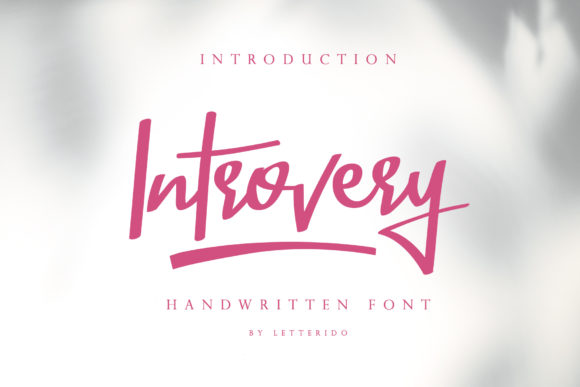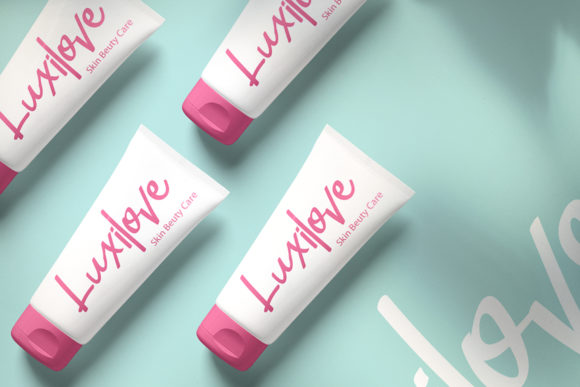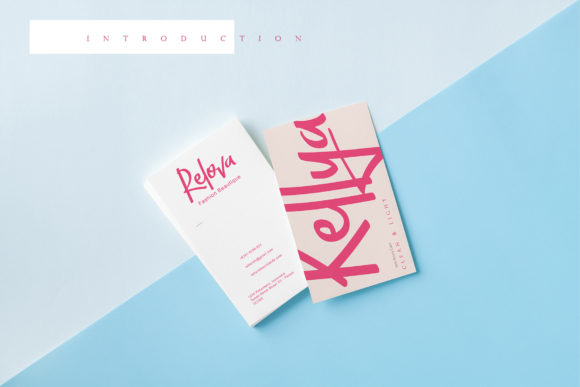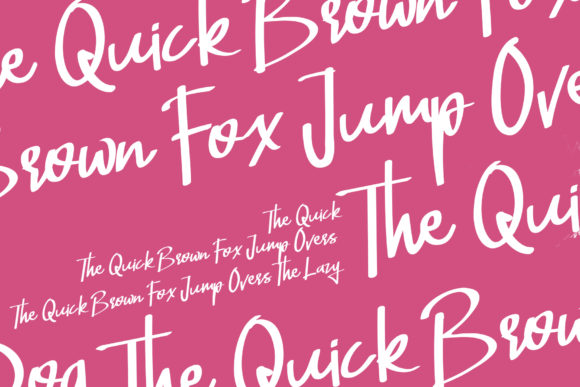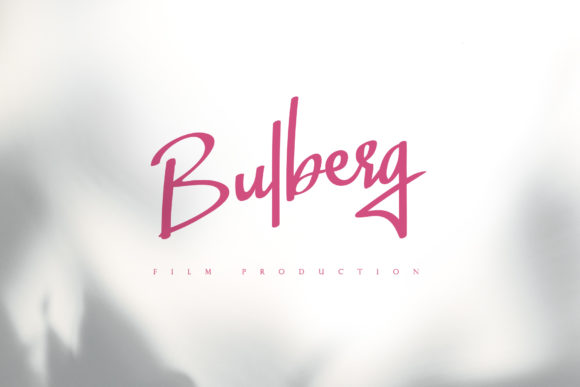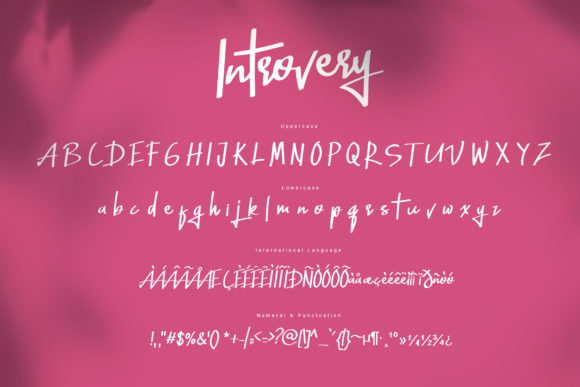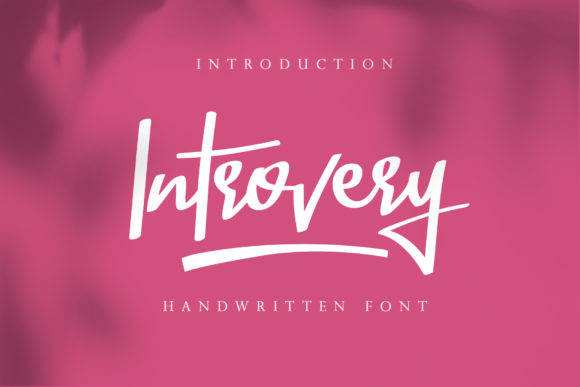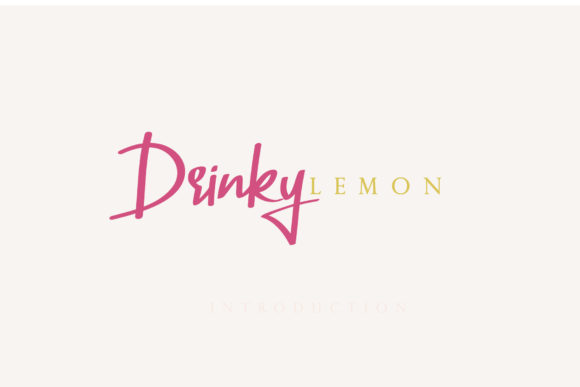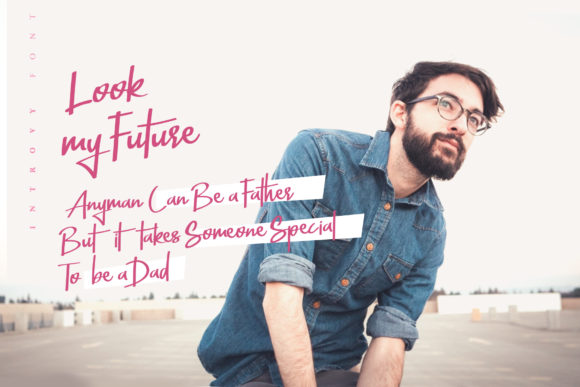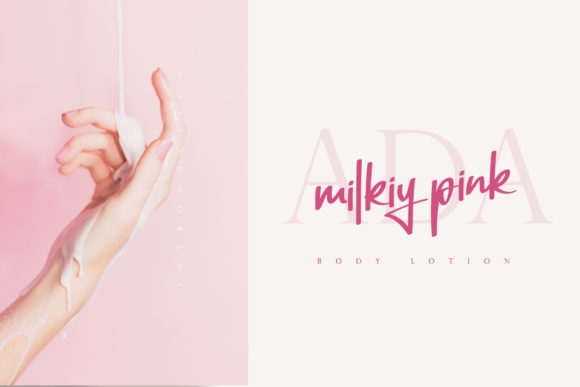
HomeScript FontsIntrovery Font Script Fonts Introvery Font FacebookXPinterestWhatsApp Introvery Font Poster 2 Introvery Font Poster 3 Introvery Font Poster 4 Introvery Font Poster 5 Introvery Font Poster 6 Introvery Font Poster 7 Introvery Font Poster 8 Introvery Font Poster 9 Introvery Font Poster 10 Introvery Font Poster 11 Introvery Font Poster 12 Introvery Font Poster 13 Introvery Font Poster 14 Introvery Font Poster 15 Introvery Font Poster 16 About Introvery Font Introvery is a beautiful script font with a magical look. Get inspired by its unique look! DOWNLOAD NOW People also explored Arrakis Font Everylove Font Pink Flamingo Roze Belinda – Display Font Duo Font Blow Font Restway Font Stephanie Script Manthan Font Minimalist Font 365 0 TagsIntrovery Font Previous articleHavina FontNext articleClarista Script Font LEAVE A REPLY Cancel reply Comment: Please enter your comment! Name:* Please enter your name here Email:* You have entered an incorrect email address! Please enter your email address here Website: Save my name, email, and website in this browser for the next time I comment. Personal Use Free Charlie Personal Use Free Read more about this font Jabirah Personal Use Free Read more about this font Mullia Personal Use Free Read more about this font Spectrashell Personal Use Free Read more about this font BLOG How to Install and Use Fonts on Windows, macOS, and Web Projects How to Install and Use Fonts on Windows, macOS, and Web Projects Fonts are a crucial part of design and branding. Whether you’re designing a... Top 7 Google Fonts Alternatives for Faster and Privacy-Friendly Web Design (2025) Best Fonts for T-Shirt Design – Top 2025 Picks To increase your work productivity, choose the most readable fonts.